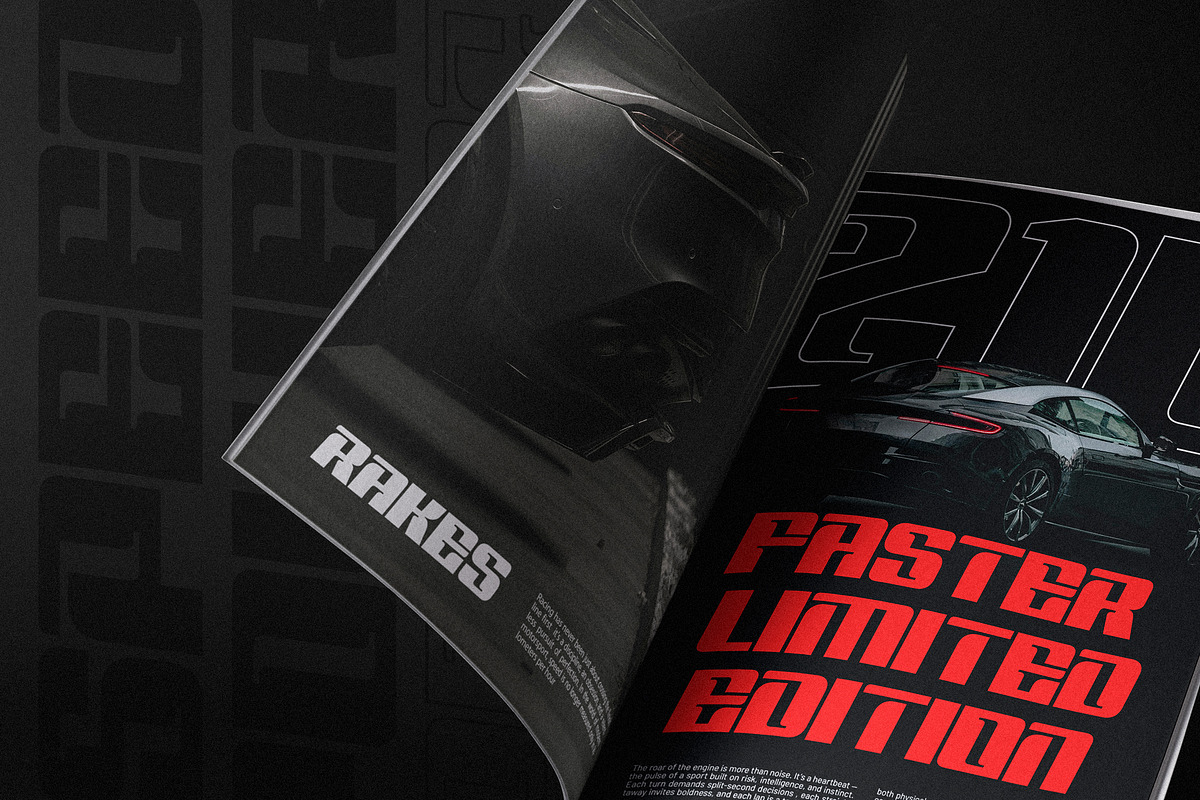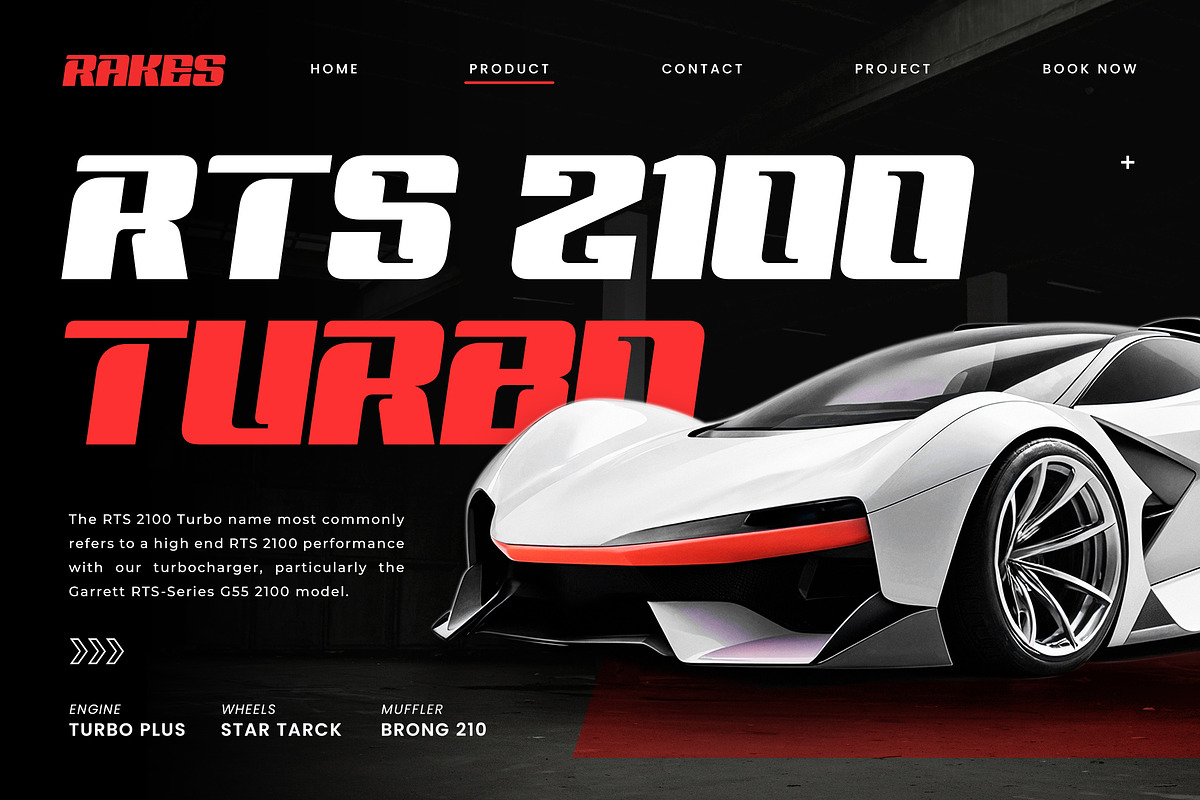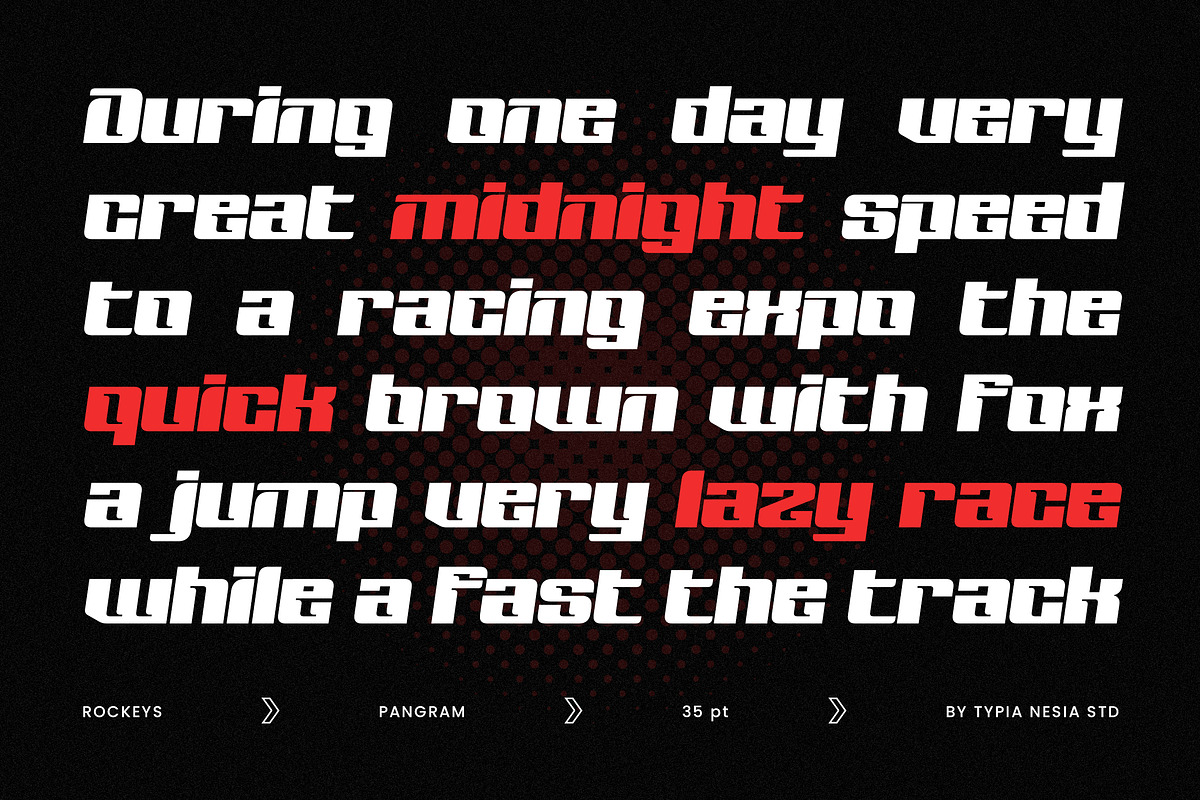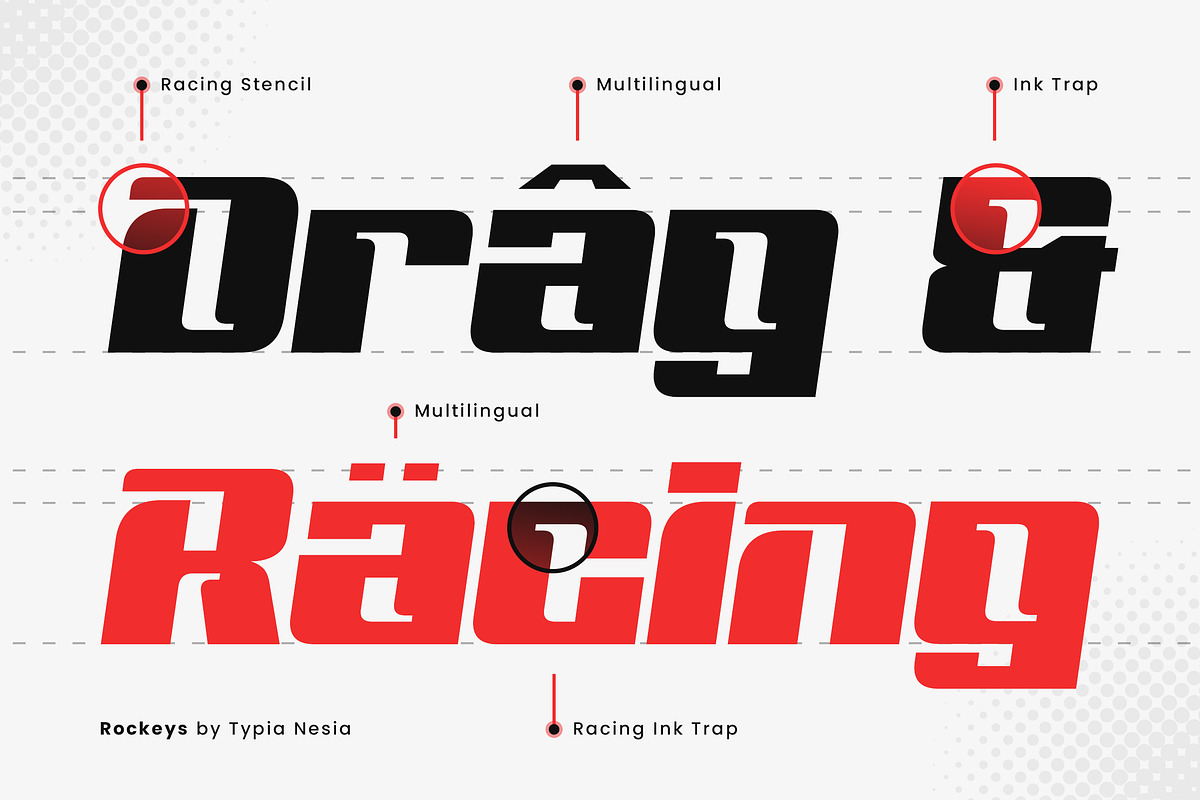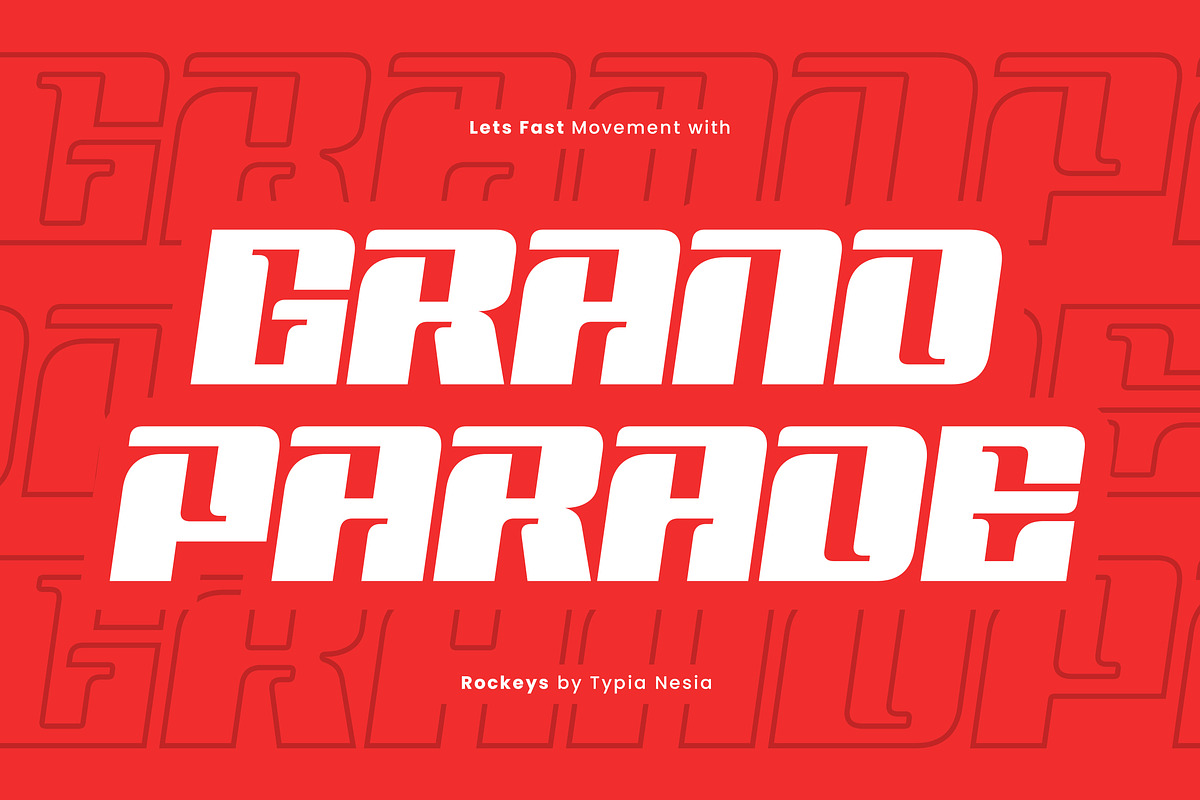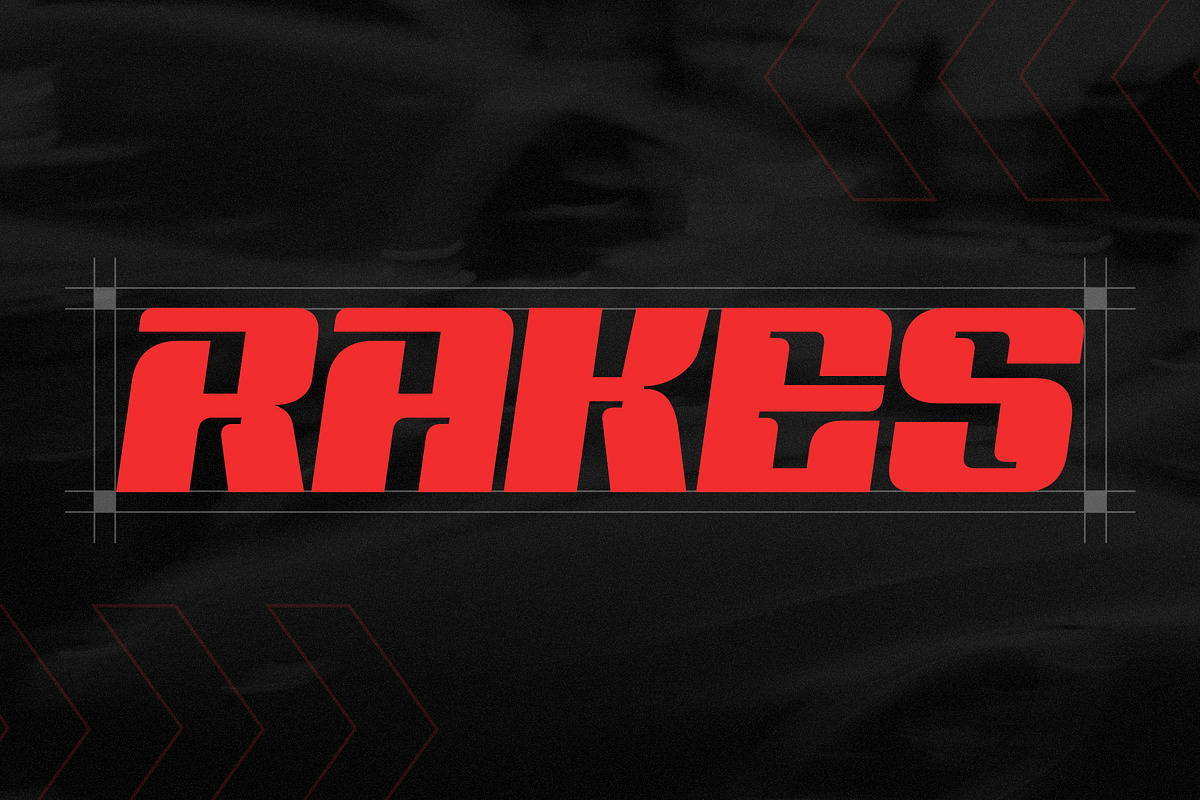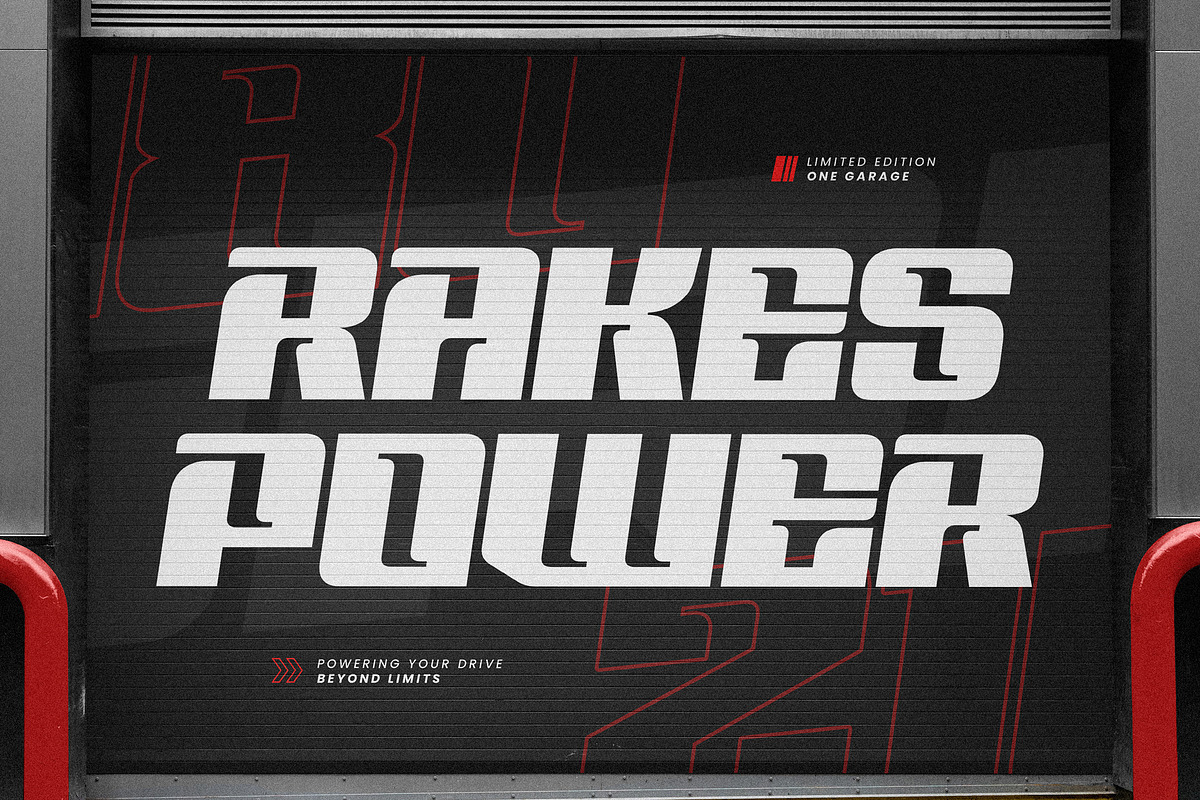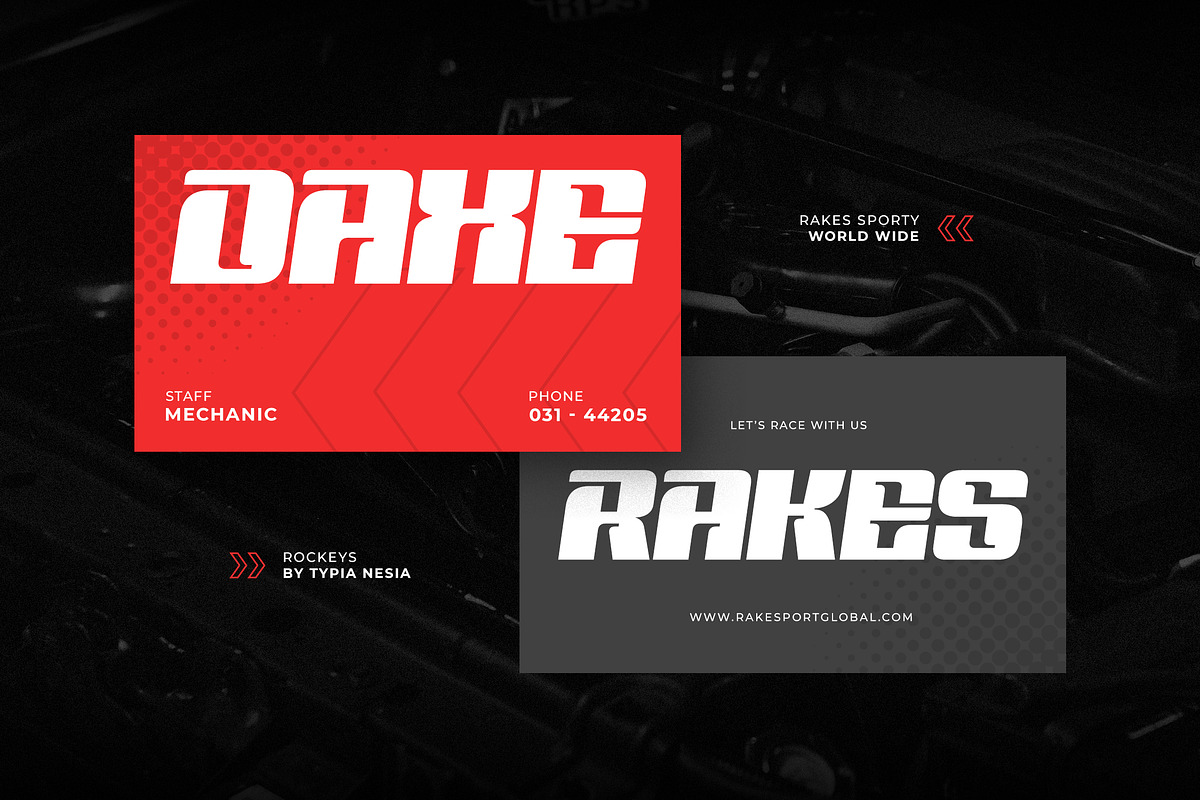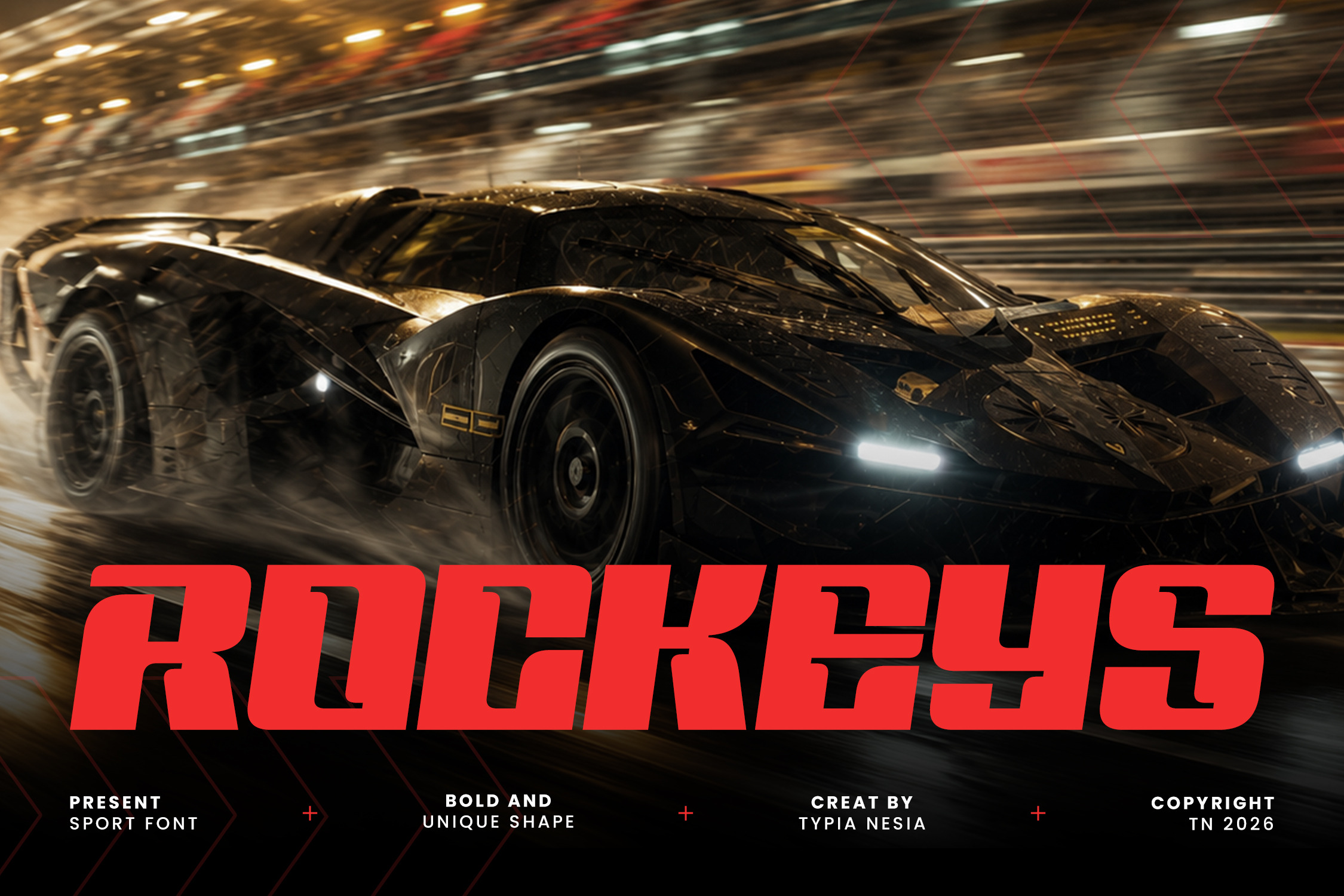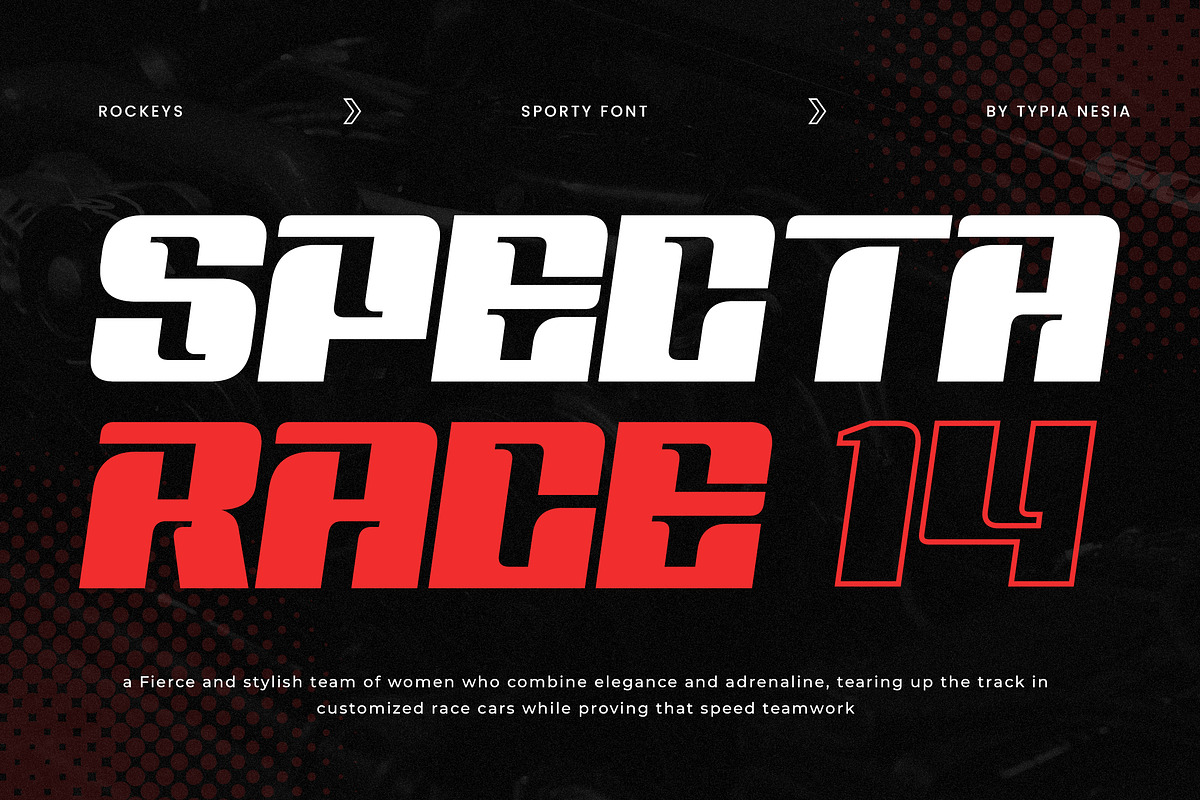
Rockeys - Racing Game Font
Rockeys is a high-octane, heavy-set sport display typeface engineered specifically for motorsport, athletic brand, and high-energy action branding. Designed to communicate strength, speed, and unstoppable energy, it delivers a high-impact visual style that stands out across sports brand, motorsport media, and modern branding.
Perfect for sports team logos, racing graphics, sport event banners, and automotive product branding. It features bold blocky silhouettes and unique angular cuts, making it versatile and easy to use across a wide range of design needs. Inject adrenaline, speed, and powerful athletic energy into your projects with Rockeys today!